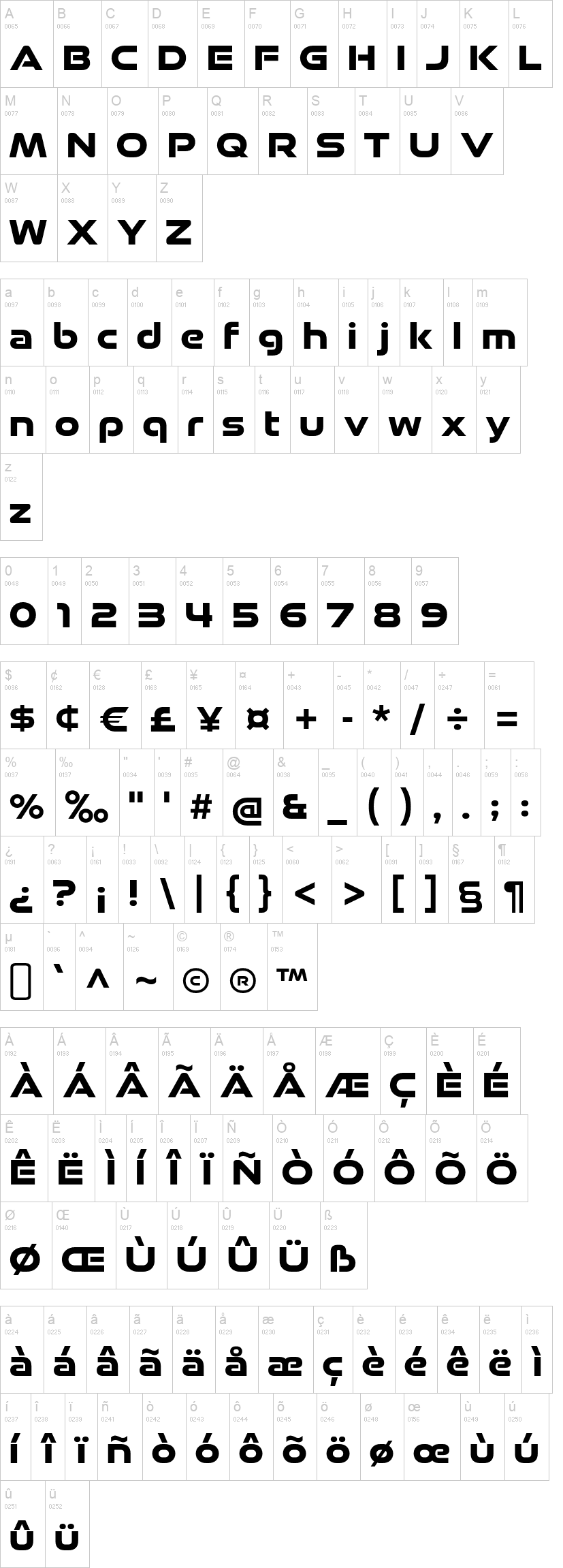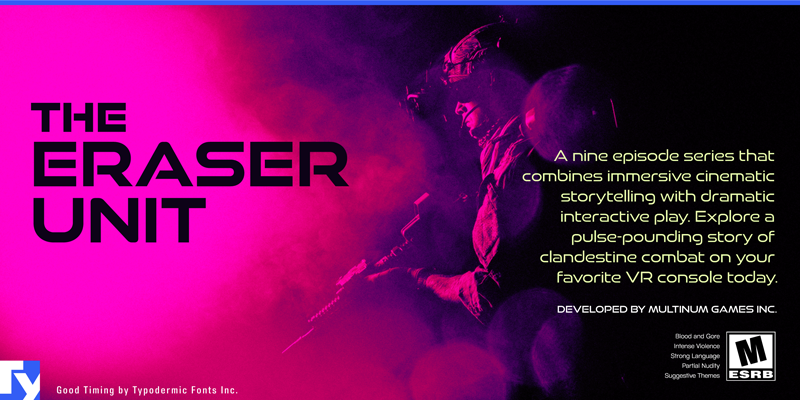
Note of the authorThe inspiration for Good Timing came from a font named Good Times, which was released in 1998. This variant includes more streamlined capitals, a more dynamic weight range, and a matching lowercase. Mathematical symbols, fractions, numeric ordinals, and monetary symbols are in good supply. Good Timing is available in seven weights, including italics. Most Latin-based European, Vietnamese, Greek, and most Cyrillic-based writing systems are supported, including the following languages. Afaan Oromo, Afar, Afrikaans, Albanian, Alsatian, Aromanian, Aymara, Azerbaijani, Bashkir, Bashkir (Latin), Basque, Belarusian, Belarusian (Latin), Bemba, Bikol, Bosnian, Breton, Bulgarian, Buryat, Cape Verdean, Creole, Catalan, Cebuano, Chamorro, Chavacano, Chichewa, Crimean Tatar (Latin), Croatian, Czech, Danish, Dawan, Dholuo, Dungan, Dutch, English, Estonian, Faroese, Fijian, Filipino, Finnish, French, Frisian, Friulian, Gagauz (Latin), Galician, Ganda, Genoese, German, Gikuyu, Greenlandic, Guadeloupean Creole, Haitian Creole, Hawaiian, Hiligaynon, Hungarian, Icelandic, Igbo, Ilocano, Indonesian, Irish, Italian, Jamaican, Kaingang, Khalkha, Kalmyk, Kanuri, Kaqchikel, Karakalpak (Latin), Kashubian, Kazakh, Kikongo, Kinyarwanda, Kirundi, Komi-Permyak, Kurdish, Kurdish (Latin), Kyrgyz, Latvian, Lithuanian, Lombard, Low Saxon, Luxembourgish, Maasai, Macedonian, Makhuwa, Malay, Maltese, Māori, Moldovan, Montenegrin, Nahuatl, Ndebele, Neapolitan, Norwegian, Novial, Occitan, Ossetian (Latin), Papiamento, Piedmontese, Polish, Portuguese, Quechua, Rarotongan, Romanian, Romansh, Russian, Rusyn, Sami, Sango, Saramaccan, Sardinian, Scottish Gaelic, Serbian, Serbian (Latin), Shona, Sicilian, Silesian, Slovak, Slovenian, Somali, Sorbian, Sotho, Spanish, Swahili, Swazi, Swedish, Tagalog, Tahitian, Tajik, Tatar, Tetum, Tongan, Tshiluba, Tsonga, Tswana, Tumbuka, Turkish, Turkmen (Latin), Tuvaluan, Ukrainian, Uzbek, Uzbek (Latin), Venda, Venetian, Vepsian, Vietnamese, Võro, Walloon, Waray-Waray, Wayuu, Welsh, Wolof, Xavante, Xhosa, Yapese, Zapotec, Zarma, Zazaki, Zulu and Zuni.